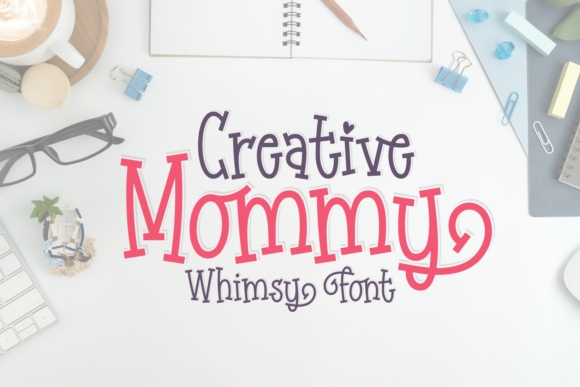
Creative Mommy Font
Creative Mommy Font is perfect for mom blogger branding, creative parenting workshops, children's craft businesses, family photography studios, maternal wellness centers, creative homeschool materials, artistic playgroup signage, imaginative kids' products, nurturing childcare centers, and inspiring motherhood campaigns.
Creative Mommy Font creates excitement because it embodies the innovative spirit and artistic nurturing of modern motherhood with its playful letterforms and creatively-inspired character design. The font's imaginative curves and maternal aesthetic instantly convey both creative passion and loving care, making any brand appear both artistically inspired and deeply nurturing. Its carefully crafted creative details and motherly character create an immediate sense of artistic warmth that captivates audiences seeking creative parenting solutions, innovative family experiences, and products that celebrate the beautiful intersection of maternal love and creative expression.
The Creative Mommy Font family includes multiple weights and styles: Regular, Bold, Light, Medium, Italic, Condensed, Extended, Playful, Artistic, and Nurturing versions. Each variant maintains the font's signature creative maternal character while offering different levels of artistic energy and nurturing styling suitable for various family-focused and creative parenting applications.
This inspiring typeface brings the authentic spirit of creative motherhood into contemporary family design with remarkable warmth and artistic appeal. Creative Mommy Font Free Download provides family brands and creative parenting organizations with access to premium maternal typography that embodies the essence of innovative parenting and creative family living. The font's artistic design and maternal authenticity make it ideal for businesses seeking to establish meaningful connections with creative mothers and families who appreciate imaginative parenting approaches and artistic family experiences. Whether you're creating branding for family creative services, designing materials for parenting workshops, developing communications for children's programs, or producing content for maternal wellness platforms, this font delivers the creative maternal atmosphere that resonates with mothers seeking innovative parenting solutions, artistic family activities, and the inspiring balance of creativity and nurturing care. Its versatile design ensures outstanding performance across both creative printed materials and inspiring digital parenting platforms while maintaining the character of authentic creative maternal typography. The font excels in applications requiring parenting credibility and creative appeal. Family service professionals appreciate its ability to convey maternal creativity while remaining highly functional for various parenting communications and family-focused promotional materials. The comprehensive character set includes creative symbols and extensive international language support, making it perfect for global family brands and international parenting organizations seeking to communicate authentic creative motherhood, innovative parenting values, and artistic family living to diverse worldwide mothers who embrace creative parenting, seek imaginative family experiences, and value the transformative power of combining maternal love with creative expression that enriches family life and inspires children through the beautiful integration of nurturing care and artistic creativity.